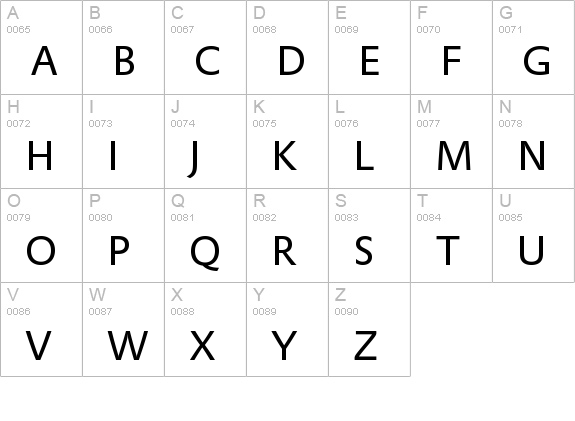
DTLProkyonST Font Details
The DTLProkyonST font is a modern and versatile typeface that exudes elegance and sophistication. With its clean lines and sleek design, this font is perfect for a wide range of design projects, from branding to editorial layouts. The DTLProkyonST font is free to download at FontsMarket.com, making it accessible to designers and creatives looking to elevate their work with a high-quality typeface. Whether you're working on a website, poster, or logo design, the DTLProkyonST font will bring a touch of professionalism and style to your project. Download this font today and enhance your designs with its timeless appeal.